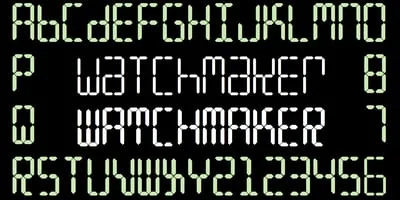
Watchmaker Font
Watchmaker Font is excellent for precision design applications including luxury timepiece branding, jewelry store signage, clockmaking workshop materials, precision instrument marketing, artisan craft labels, vintage mechanical graphics, horological publications, and traditional craftsmanship logos. This refined typeface captures the meticulous artistry and mechanical precision of traditional watchmaking through carefully crafted letterforms that embody craftsmanship excellence.
What makes Watchmaker Font exciting is its authentic representation of horological craftsmanship with precise letterforms that mirror the mechanical accuracy and artistic detail found in fine timepieces. The font features carefully balanced proportions and refined details that communicate precision, reliability, and traditional craftsmanship. Its mechanical character appeals to audiences who appreciate fine craftsmanship, precision engineering, and timeless quality.
The Watchmaker Font family includes various craftsmanship-inspired styles such as Regular, Bold, Light, and mechanical alternates with gear-inspired details that enhance the horological aesthetic. These precise options provide comprehensive design solutions for creating authentic craft brand identities that celebrate traditional watchmaking and precision manufacturing excellence.
This specialized craft typeface brings genuine horological authenticity to contemporary design projects. Luxury watch brands and precision craftsmen choose Watchmaker Font for its exceptional ability to communicate craftsmanship precision and mechanical sophistication. The font's watchmaking inspiration makes it perfect for timepiece manufacturers, jewelry artisans, and precision instrument companies that want to convey traditional craftsmanship and mechanical excellence. Its refined character ensures memorable brand recognition while maintaining the authentic aesthetic that defines exceptional craftsmanship-focused design work.